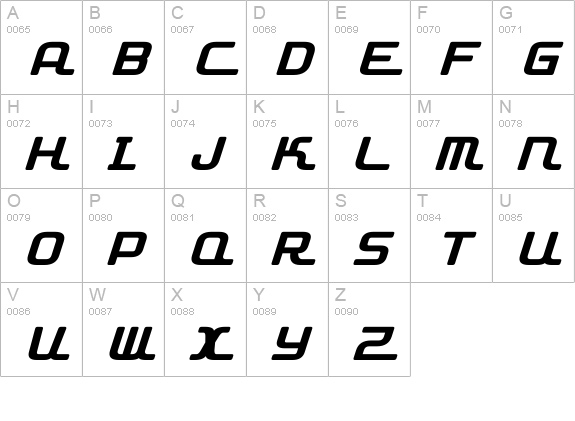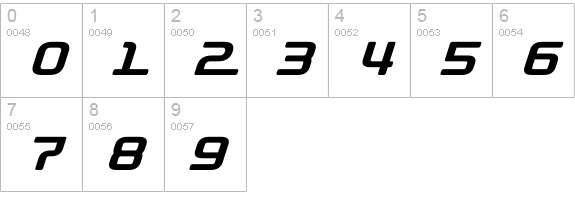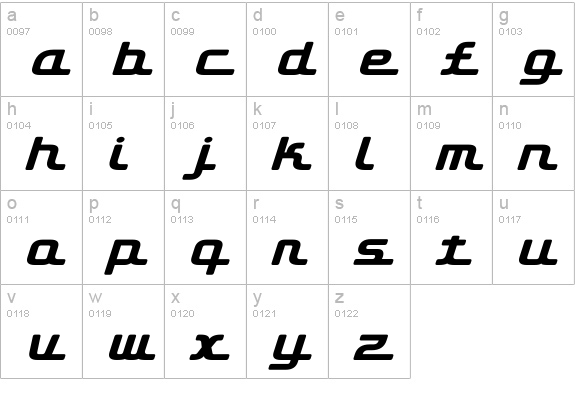
D3 Roadsterism Italic Font Details
D3 Roadsterism Italic is a distinctive, italic variant in the D3 typeface family \xE2\x80\x94 well suited to design and typography projects.
Introducing D3 Roadsterism Italic, a stunning font that exudes elegance and sophistication. With its sleek and dynamic design, this font is perfect for adding a touch of modernity to any project. The italicized slant adds a sense of movement and flow, making it ideal for capturing attention and creating a lasting impression. D3 Roadsterism Italic is not only visually captivating but also incredibly versatile. Whether you're designing a logo, creating eye-catching headlines, or crafting stylish invitations, this font will effortlessly elevate your work to new heights. One of the standout features of D3 Roadsterism Italic is its impeccable legibility. Each character is carefully crafted with precision and attention to detail, ensuring that your message is clear and easy to read. Whether it's used in small or large sizes, this font maintains its readability, making it perfect for both print and digital mediums. The best part is that D3 Roadsterism Italic is available for free download at FontsMarket.com. Yes, you read that right! This incredible font can be yours without spending a dime. Simply head over to FontsMarket.com, locate D3 Roadsterism Italic, and start using it in your designs today. Don't miss out on the opportunity to enhance your creative endeavors with this exceptional font. Download D3 Roadsterism Italic now and experience the perfect blend of style, versatility, and legibility. Let your designs stand out from the crowd with this remarkable font.